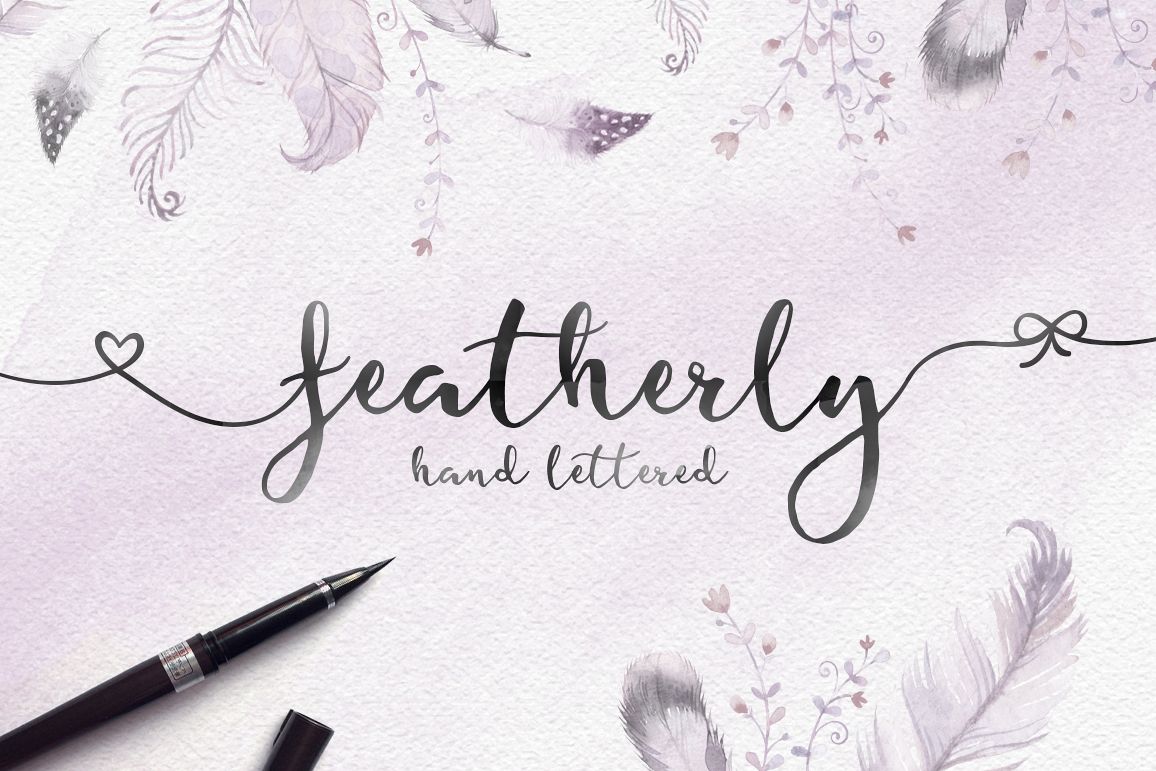
Featherly hand lettered
I had to do it :-) - A hand lettered version of featherly is here!
As always with featherly, it's perfect for anything to do with romance, weddings and love but this hand lettered version can give you an even more authentic, handmade look to your designs.
There are 26 left and right swashes. No alternates with this one though. Hence the lower price.The otf file incorporates the swashes and ligatures but for those of you who don't use glyph panels there is a separate ttf font file for the swashes - just type A-Z for the left and a-z for the right.